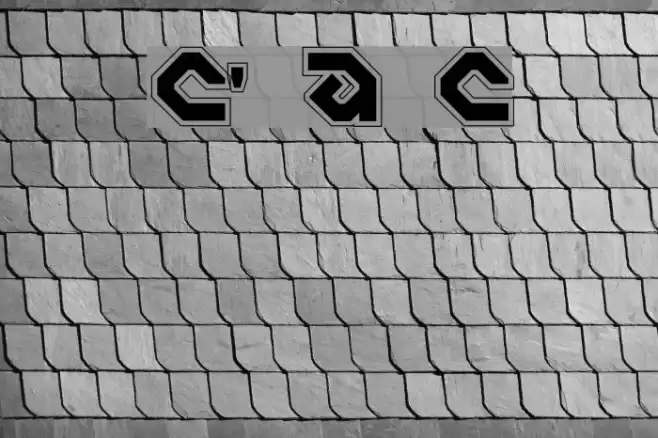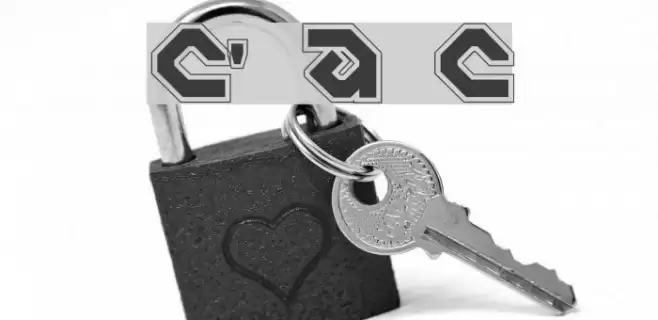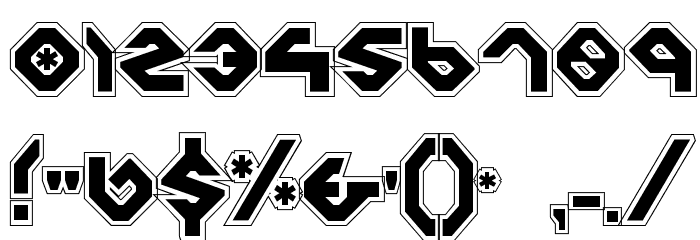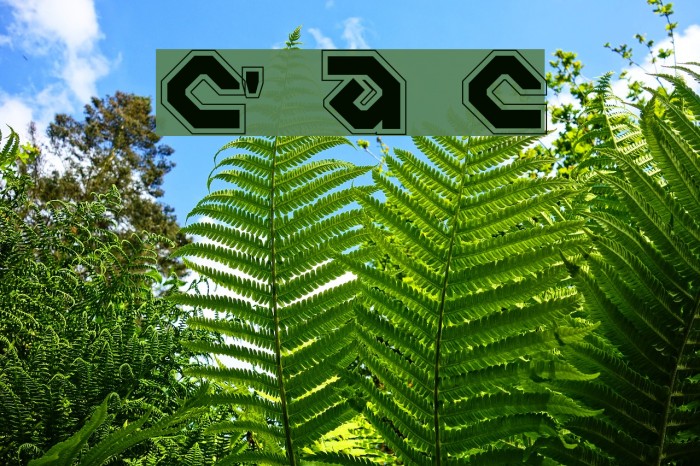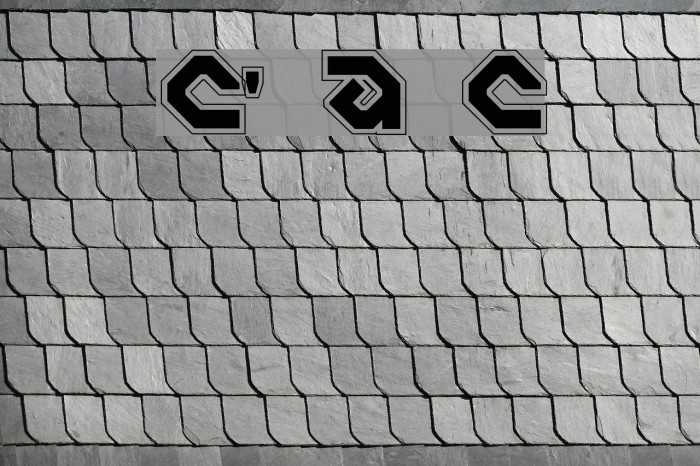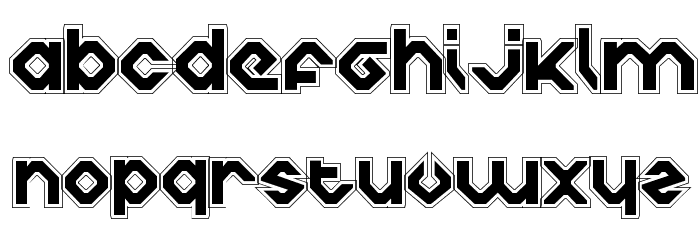
Charlie's Angles Collegiate Font
Charlie's Angles Collegiate Description
This font features a bold, collegiate style with a strong geometric influence. The characters are outlined with a thick border, giving them a three-dimensional appearance. The angular design and sharp edges contribute to a modern and sporty aesthetic, reminiscent of varsity jackets and athletic team logos. The uppercase and lowercase letters maintain a consistent style, with numbers and special characters following the same bold and structured design. This font is ideal for projects that require a strong, impactful presence.
A bold, geometric collegiate font with a sporty, modern aesthetic from Futuristic fonts.
- Proposed Projects: Ideal for sports team branding, varsity apparel, posters, and event promotions.